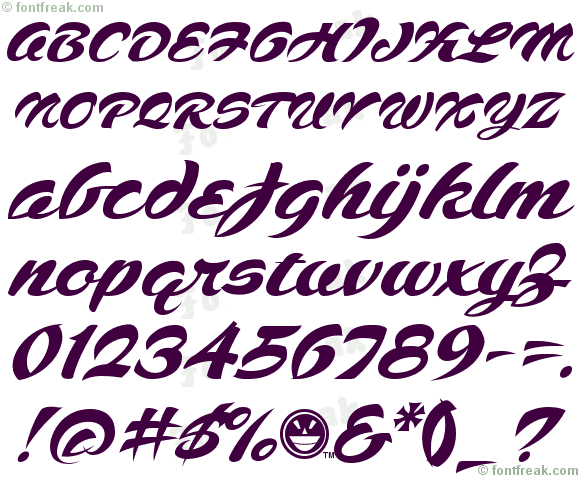
Voodoo Script
About Voodoo Script
Voodoo Script, crafted by The Fontry, is an enchanting script font that captures the essence of whimsical elegance. This freeware font features fluid, flowing lines that mimic the beauty of handwritten calligraphy, making it an excellent choice for a variety of creative projects. Its unique design combines a moderate stroke weight with varying contrast, resulting in a dynamic and engaging visual appeal. The spacing between letters is thoughtfully arranged, allowing for easy readability while still maintaining a stylish flair. Decorative elements, such as playful swashes and loops, enhance its character, giving it a distinctive personality that stands out.
Voodoo Script is particularly well-suited for specific applications that demand a touch of sophistication and charm. It excels in creating stunning wedding invitations that evoke romance and intimacy, making the special day even more memorable. Additionally, this font is perfect for eye-catching movie posters, where dramatic typography can capture the viewer's attention. Restaurant menus can also benefit from the inviting warmth of Voodoo Script, enticing diners with its artistic flair. Content creators and graphic designers will find this font valuable for branding projects, as it adds a unique touch to logos and promotional materials.
The target audience for Voodoo Script includes graphic designers, small business owners, and content creators who seek to elevate their work with a distinctive typeface. Its versatility and charm make it a go-to option for anyone looking to infuse their designs with personality.
Overall, Voodoo Script stands out not only for its aesthetic appeal but also for its ability to convey emotion and storytelling through typography. With its captivating style and free availability, the Voodoo Script font free download offers an opportunity for creatives to enhance their projects with a touch of magic.